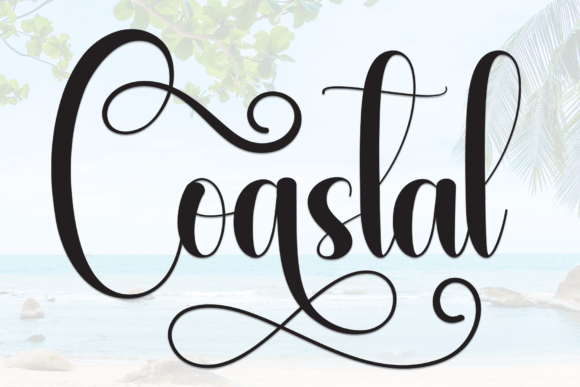
Voyage into the world of Coastal Font, a script and handwritten typeface that embodies the essence of coastal living, crafted with care by Strongkeng Old. Get immersed in its flowing lines and serene aura, reminiscent of strolls along the beach and the calming sound of waves. Unleash creativity and embark on a journey of design possibilities with Coastal Font.
Design with a Touch of Coastal Charm:
With Coastal Font at hand, you possess the power to infuse your designs with the tranquility and allure of the seaside. Whether it's beach-themed invitations, coastal-inspired logos, or whimsical branding, Coastal Font adds an enchanting touch to any project. Its unique character and aesthetic provide a calming ambiance that captivates audiences.
Embrace the Coastal Lifestyle Through Design:
Let Coastal Font carry you away to the coast, where serenity and creativity intertwine. Dive into the design possibilities and create projects that reflect the laid-back and carefree vibes of the coastal lifestyle. Whether it's website designs that evoke the feeling of a seaside escape or social media graphics that transport viewers to tranquil shores, Coastal Font weaves a tale of coastal beauty within your designs.
A Font That Speaks for Itself:
With Coastal Font, you have the power to unleash your creativity and convey messages with grace and elegance. Its flowing lines and relaxed style emulate the gentle caress of a coastal breeze, creating designs that speak volumes without uttering a single word. Engage your audience, capture their imaginations, and leave an enduring impression with every visual creation.
Experience the Coastal Font Difference:
Experience the transformative power of Coastal Font and see your designs come alive. Its unique charm and versatility breathe life into projects, adding a touch of elegance and sophistication. Elevate your design game, captivate your audience, and leave an indelible mark with Coastal Font.